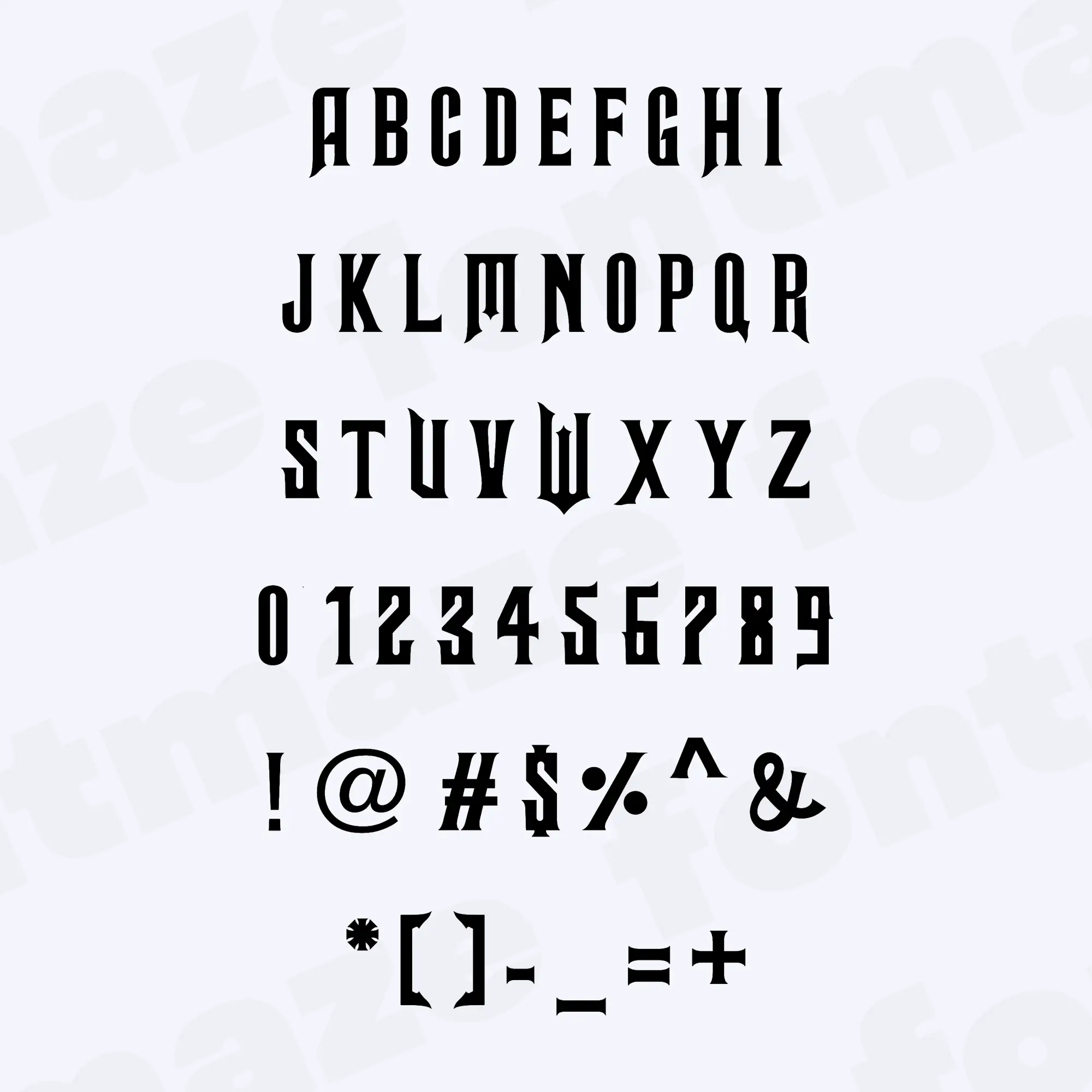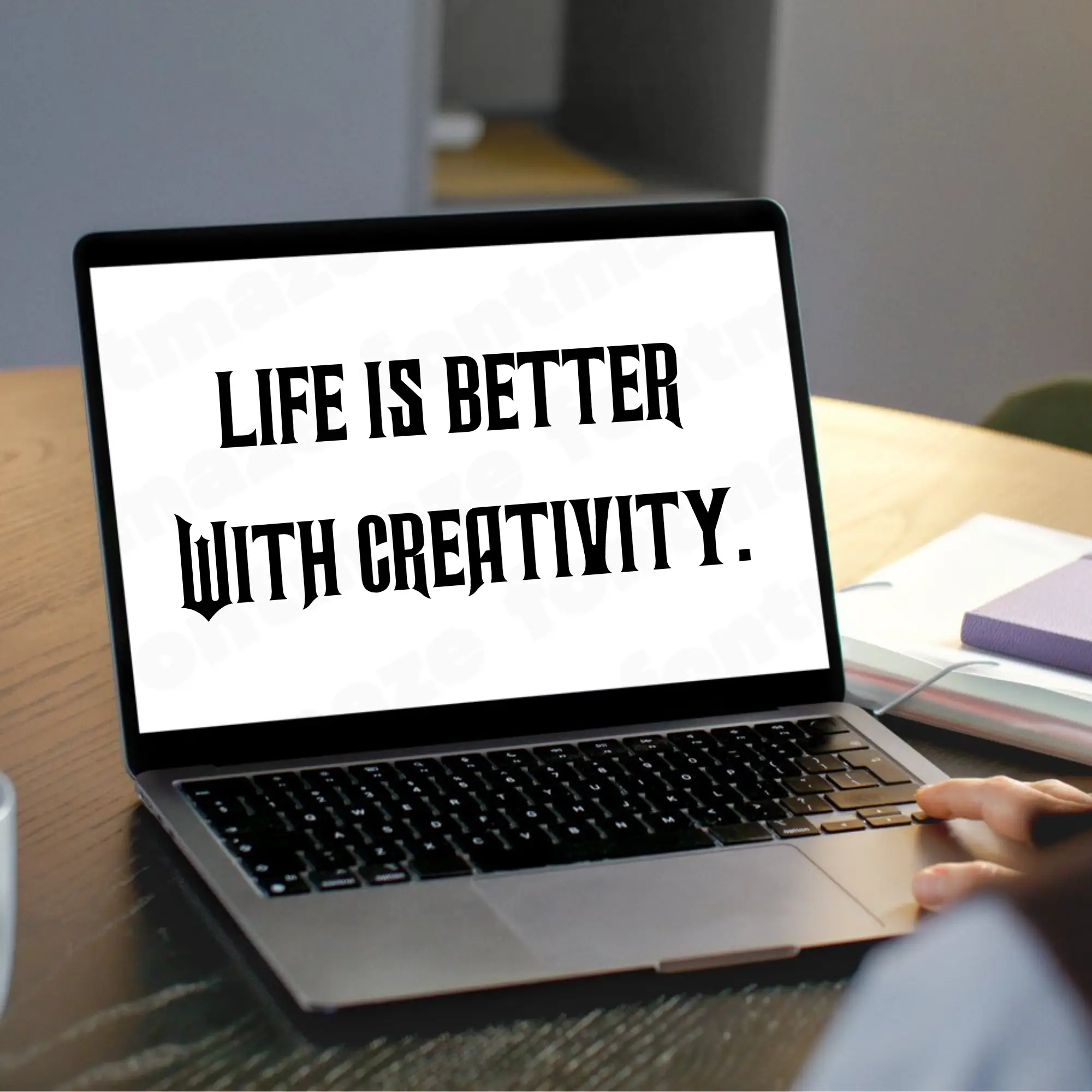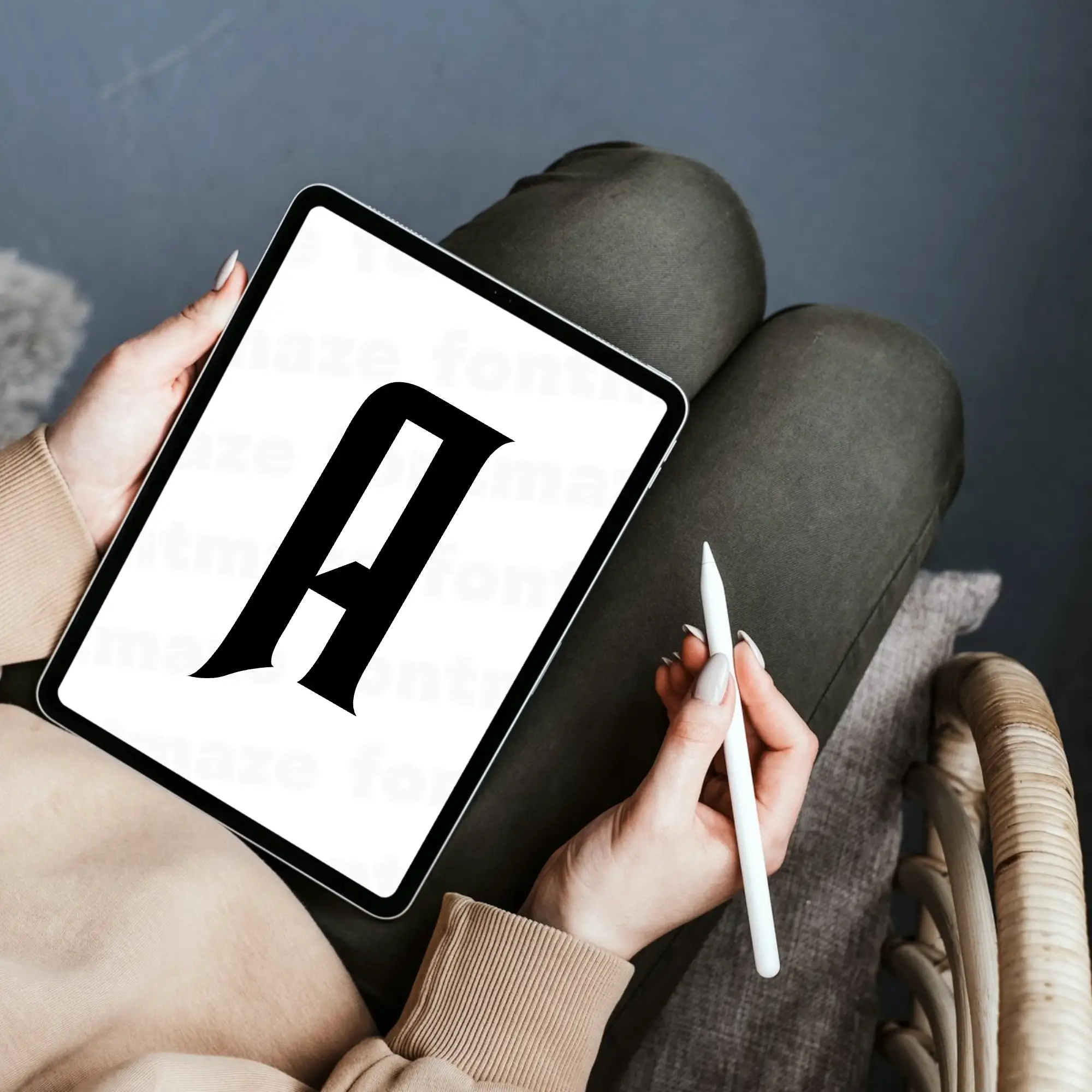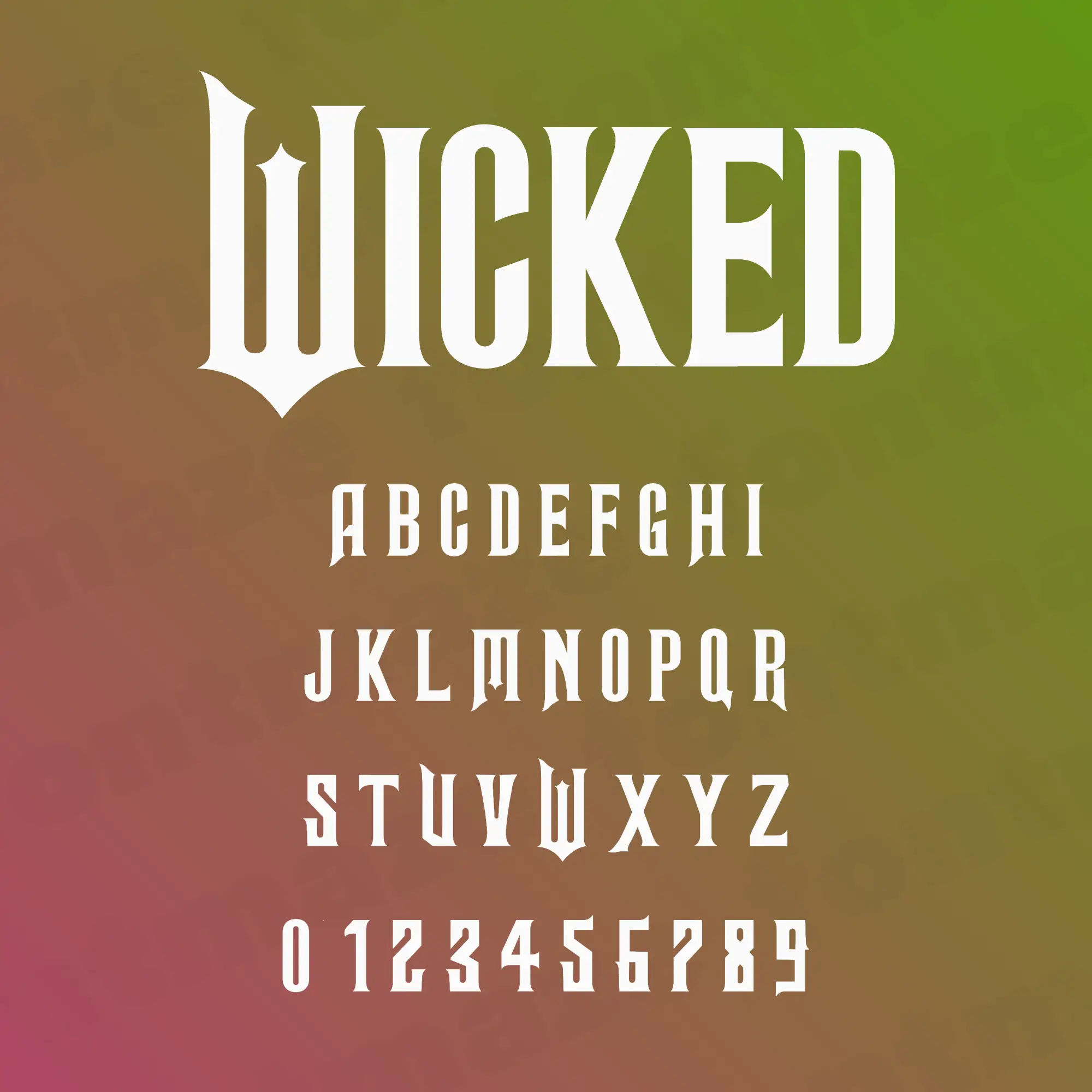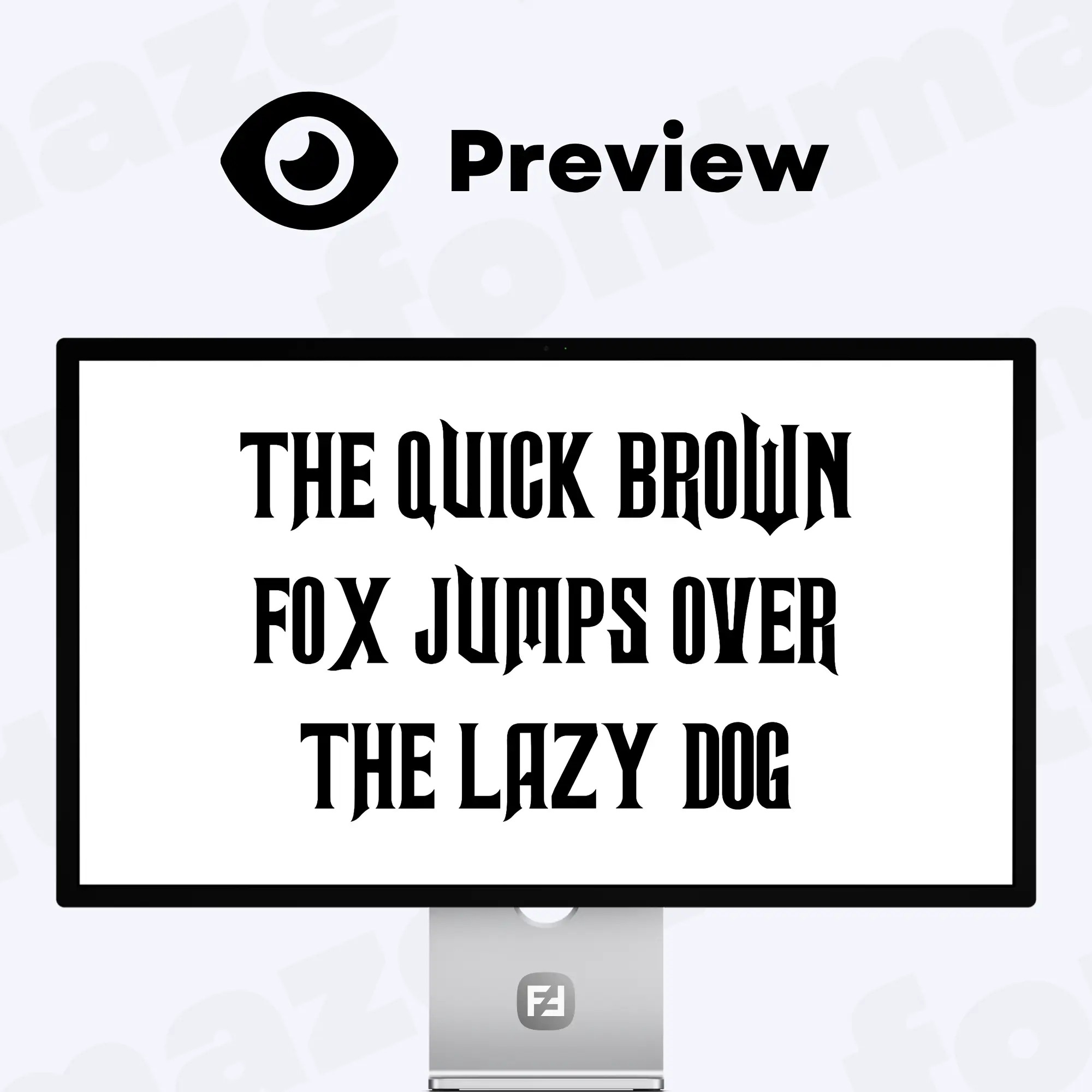
Our Wicked Font, a Witch Style Typeface
Make your next project stand out with our Wicked font – a flexible and stylish typeface made for everyone.
Handcrafted in our studio with care and attention to detail, the Wicked font brings a unique, personal touch to your designs.
Preview showing all characters of the Wicked font designed by FontMaze.
Wicked Font